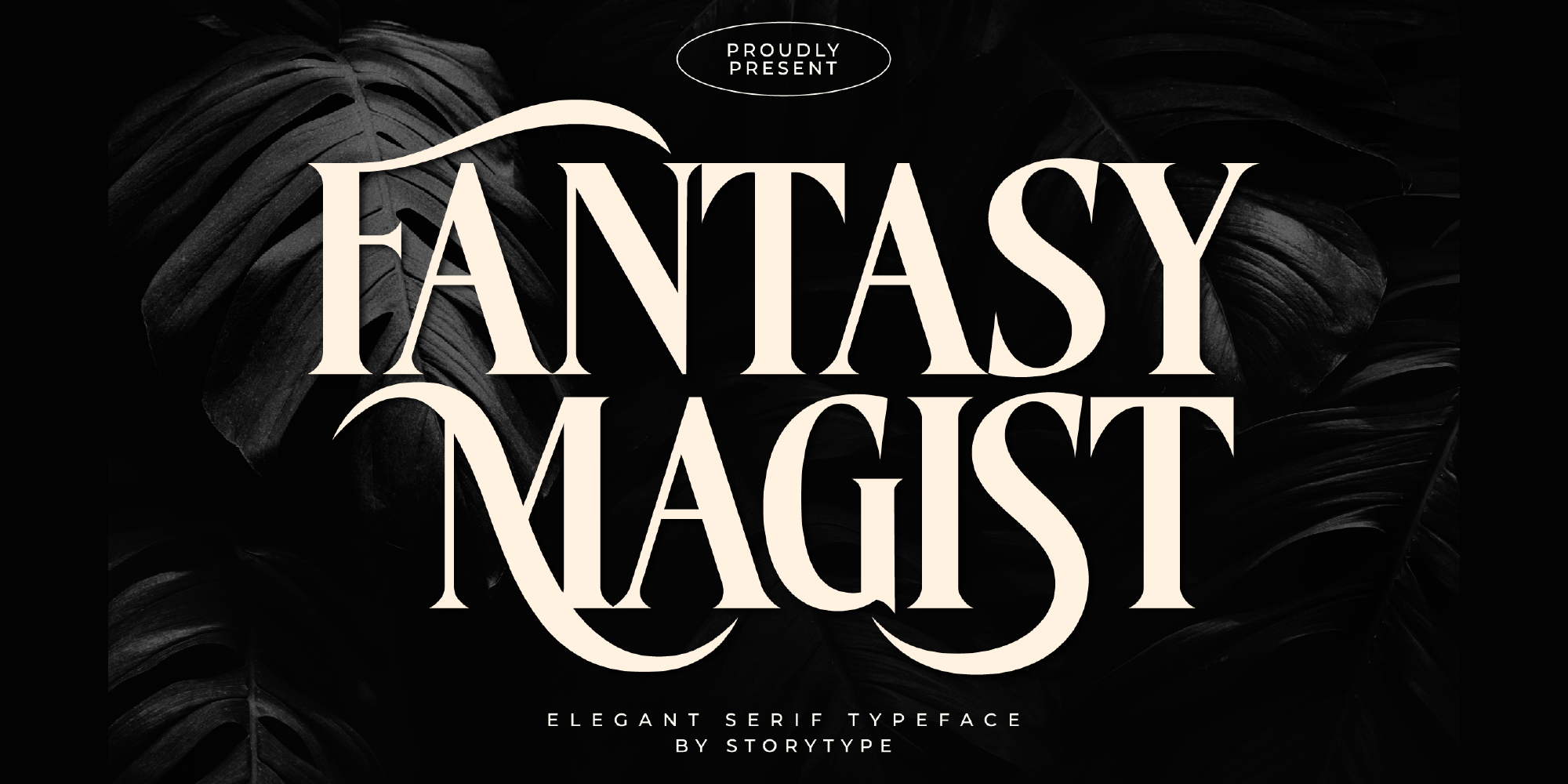
Fantasy Magist Font is perfect for fantasy novel covers, medieval-themed gaming interfaces, magical academy branding, enchanted forest retreat signage, mystical jewelry boutique logos, wizarding event promotions, fantasy role-playing game materials, and supernatural entertainment venue marketing.
Fantasy Magist Font is exciting because it channels the ancient power of arcane knowledge with its mystically crafted letterforms that seem to shimmer with magical energy and whisper secrets from forgotten spellbooks. The typeface embodies the wisdom of legendary wizards and the mysterious allure of supernatural realms, creating an immediate sense of enchantment and otherworldly authority that transports viewers to dimensions where magic reigns supreme.
Fantasy Magist Font family includes Light, Regular, Medium, Bold, and Enchanted variants, complemented by mystical flourishes and arcane symbol decorative elements, providing designers with powerful typography tools for creating communications that celebrate the wonder of magical worlds and supernatural storytelling.
Whether you're developing a fantasy entertainment brand identity, designing magical gaming content, or creating mystical wellness materials, Fantasy Magist Font Free Download offers unmatched magical authenticity and supernatural appeal. This spellbinding typeface perfectly balances ancient mystical aesthetics with contemporary readability requirements, ensuring your communications resonate with audiences who seek escape into realms of wonder and imagination. The font's enchanted character variations and mystical rhythm make it particularly effective for brands that emphasize transformation, spiritual journey, and the kind of magical experience that awakens dormant dreams and ancient wisdom. Fantasy entertainment professionals consistently select Fantasy Magist Font when projects require typography that communicates mystical power, ancient knowledge, and the kind of supernatural authority that transforms ordinary narratives into epic adventures, making it indispensable for fantasy gaming branding, mystical entertainment marketing, and any application where magical typography can evoke the infinite possibilities that exist beyond the veil of ordinary reality and inspire audiences to believe in the transformative power of magic, wonder, and the extraordinary adventures that await those brave enough to step into enchanted realms.